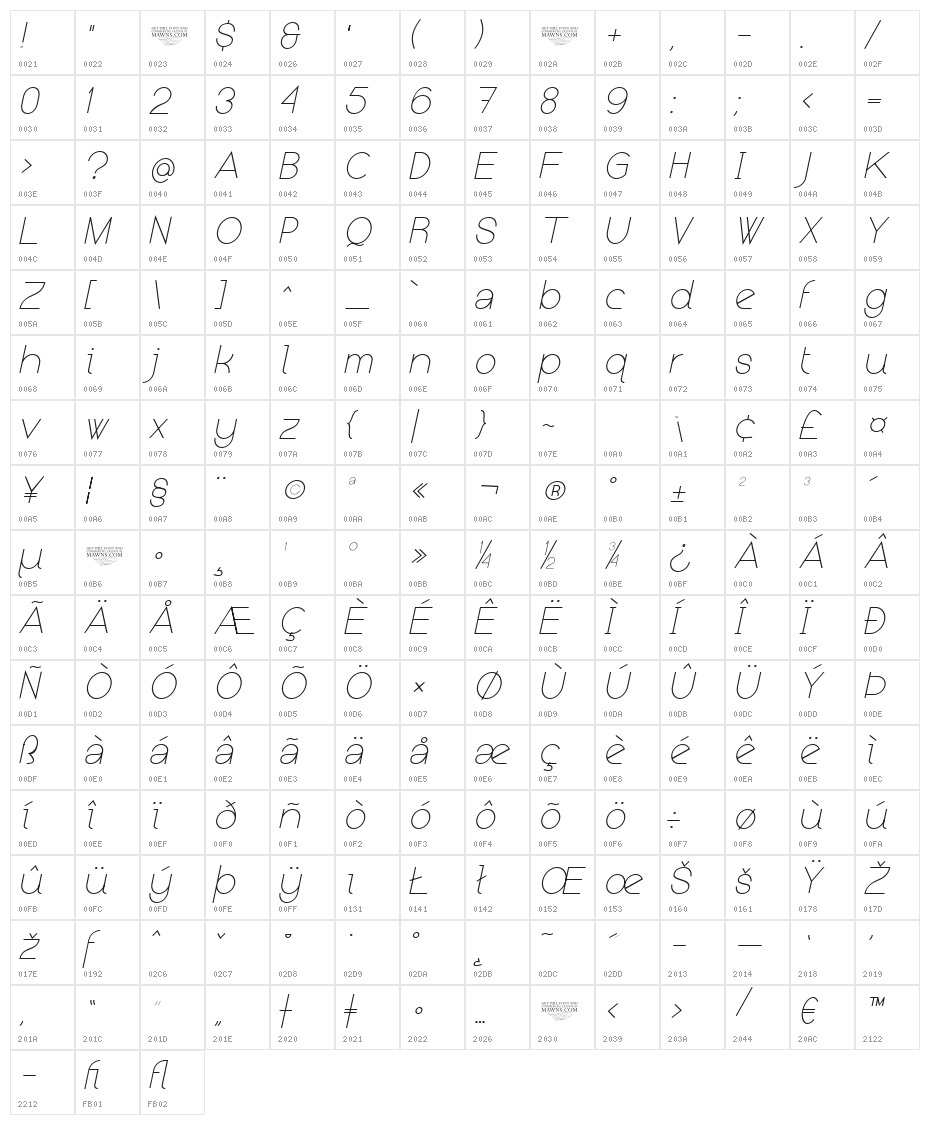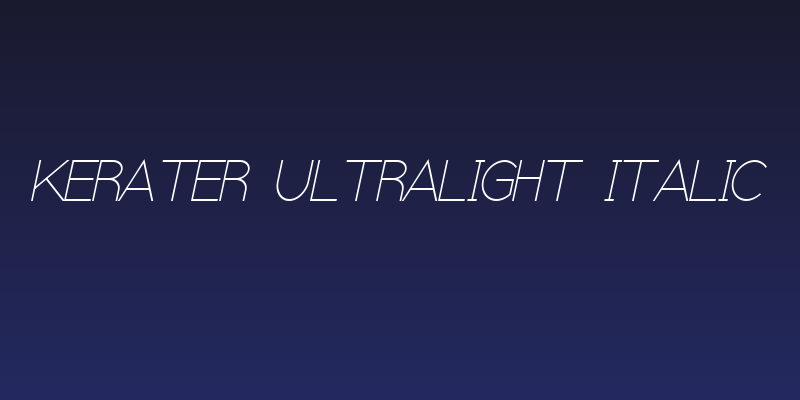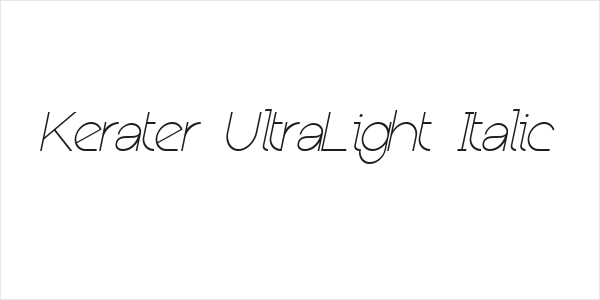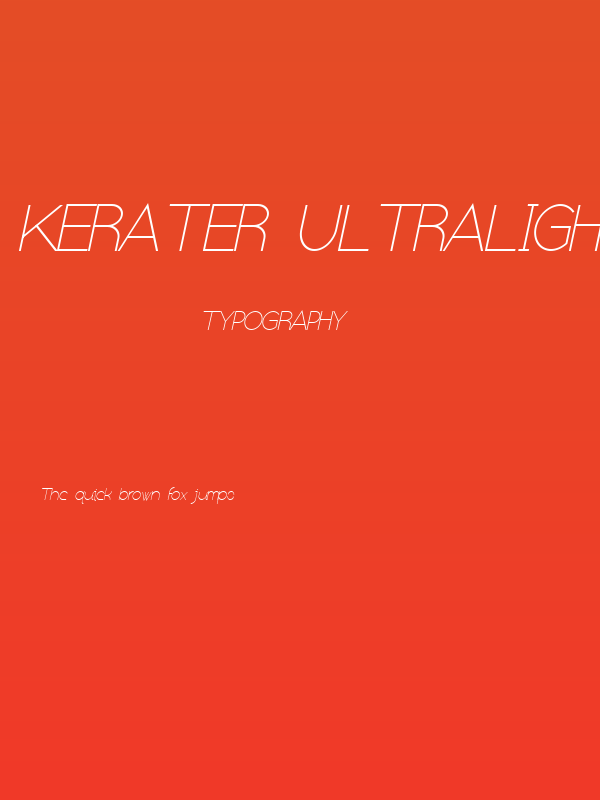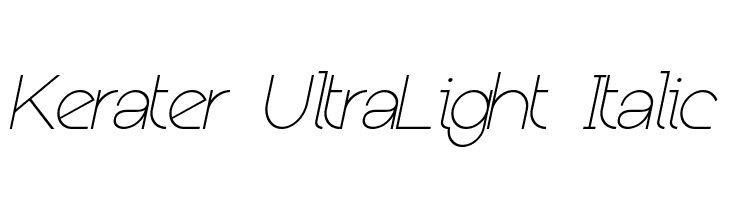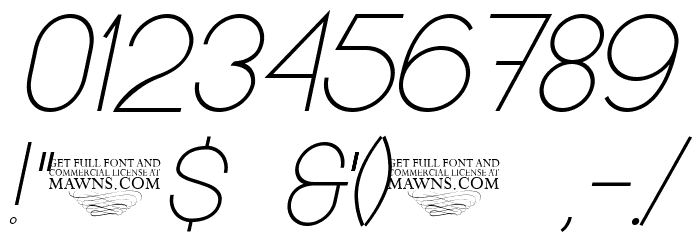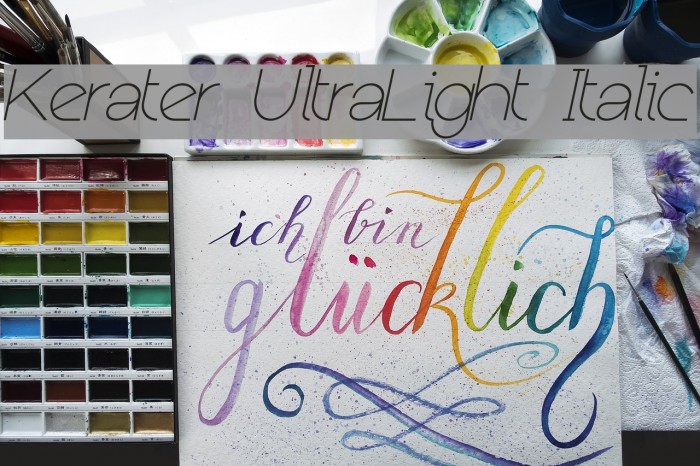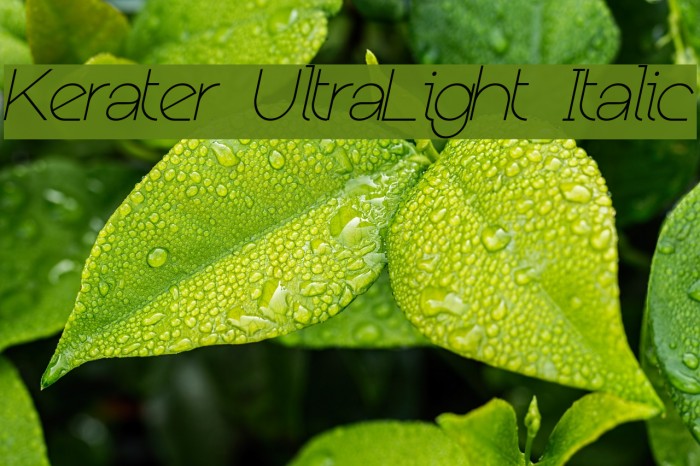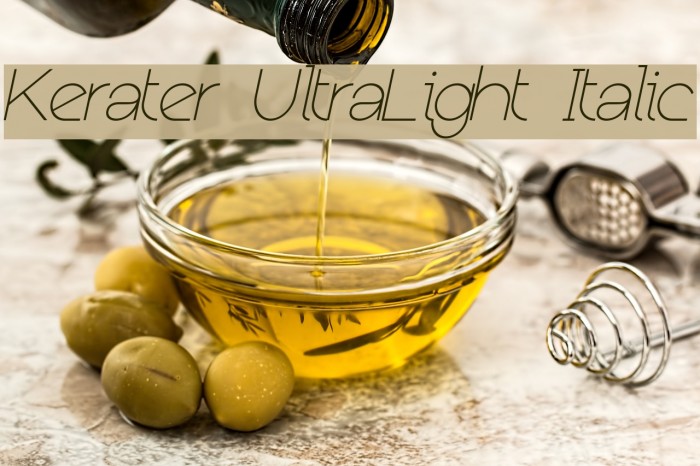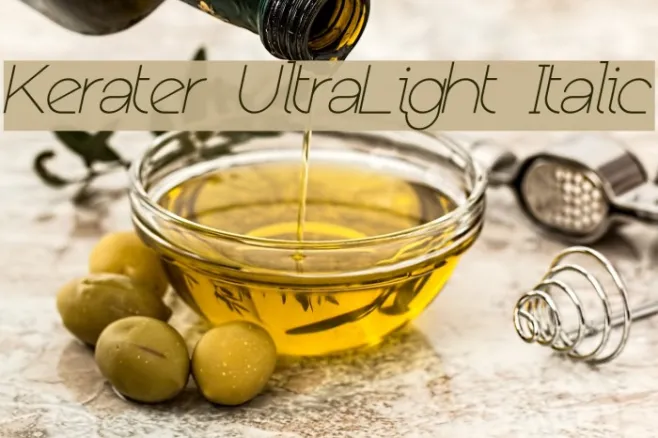
Kerater UltraLight Italic Font
Kerater UltraLight Italic Description
This font features an ultra-lightweight and elegant design with a distinct italic slant, giving it a sophisticated and modern appearance. The characters are sleek and elongated, with a consistent thin stroke that maintains a uniformity across both uppercase and lowercase letters. The numerals and special characters follow the same stylistic cues, ensuring a cohesive look throughout. The font's minimalistic approach makes it suitable for contemporary designs, where a clean and airy aesthetic is desired. Its refined curves and angles add a touch of elegance, making it ideal for upscale branding and editorial work.
| Use Case | Headlines, Editorials, Branding |
| Proposed Projects | Ideal for luxury branding, fashion magazines, modern websites, and minimalist design projects. |